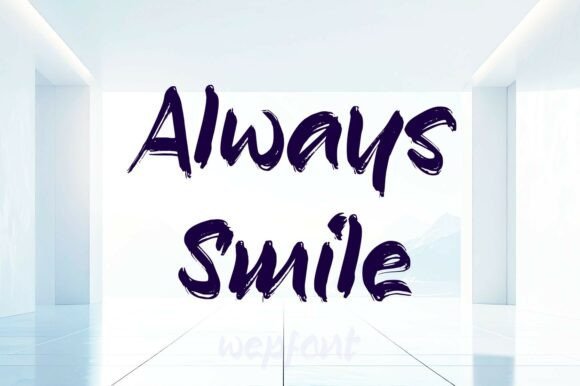
When Words Need a Smile
Have you ever received a handwritten note from a friend or loved one, and the simple act of seeing their handwriting on paper made your day? The imperfections, the loops, the quirky touches – it’s as if their personality has been poured onto the page. That’s the magic of the Always Smile Font, a vibrant and informal hand-drawn typeface that radiates positivity and energy.
As a designer, you’re always on the lookout for fonts that add a personal touch to your work. The Always Smile Font is perfect for messages that aim to be uplifting, encouraging, or simply cheerful. Its authentic hand-drawn look and lively feel make it an excellent choice for social media posts, greeting cards, or any project that needs a dose of warmth and personality.
Always Smile Font Key Features
- Font Family: Always Smile is a sans-serif typeface designed to evoke a sense of friendliness and approachability.
- Unique Characteristics: The Always Smile font features a unique, hand-drawn feel with subtle rounded edges and a friendly, approachable tone.
Always Smile Font Review
Overall, I think Always Smile Font is a cute and playful font, perfect for projects that require a cheerful and approachable vibe. Here are some things I like about it: ✨
- Unique and creative design – Always Smile Font has a distinct and quirky feel that sets it apart from more generic fonts.
- Works well for titles and headings – The font’s bold and rounded edges make it ideal for grabbing attention and creating a sense of excitement.
- Good for informal content – Always Smile Font is a great choice for blogs, social media, and other platforms where you want to convey a friendly and approachable tone.
- Not ideal for formal or professional content – Always Smile Font may come across as too casual or immature for formal projects.
- May be difficult to read at smaller sizes – The font’s rounded edges and irregular shapes can make it tricky to read at smaller font sizes.
Overall, I think Always Smile Font is a solid choice for projects that require a playful and approachable vibe. While it may not be suitable for every project, it’s a great option for those looking to add a touch of whimsy and personality to their designs.
Use the Always Smile font for playful and creative projects, such as:
1. Social media graphics and advertisements.
2. Party invitations and event materials.
3. Children’s book illustrations and educational materials.
Remember to pair the Always Smile font with a clear and readable font for optimal results.